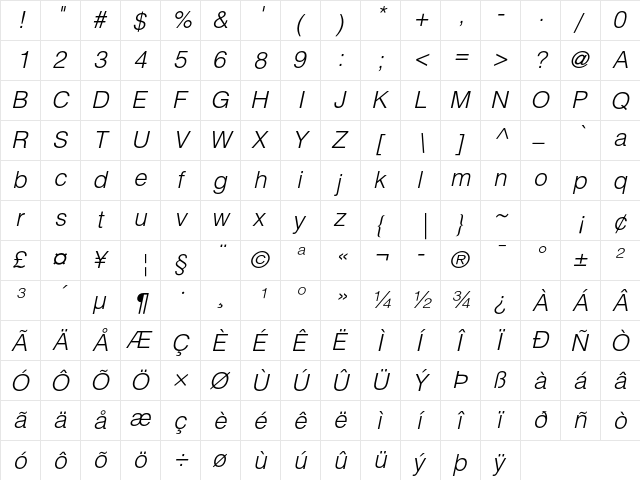
Helvetica LT Std Light Oblique Font Preview
Helvetica LT Std Light Oblique
| Designer | Max Miedinger |
Design Context for Helvetica LT Std Typeface
Helvetica LT Std offers clean, dependable letterforms without strong stylistic allegiance, making it a practical choice for designers who need flexibility. Its italic angle brings a sense of urgency and motion to the letterforms. Its slender proportions lend an understated elegance to any composition.
Pro Tip: Use Helvetica LT Std for emphasis, pull quotes, and subheadings where its slanted energy can add rhythm to the layout.